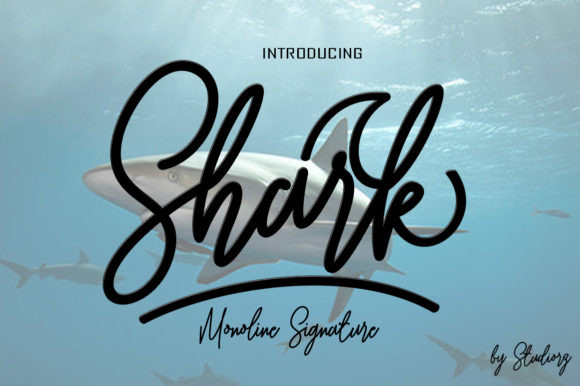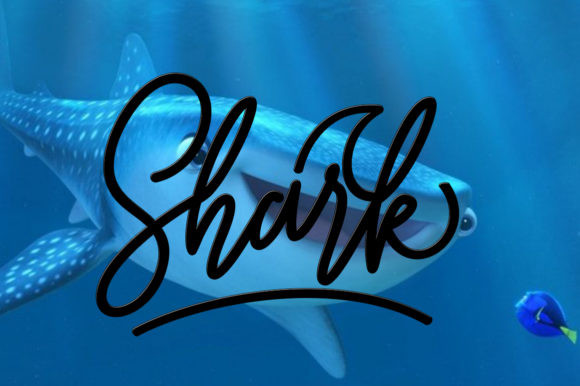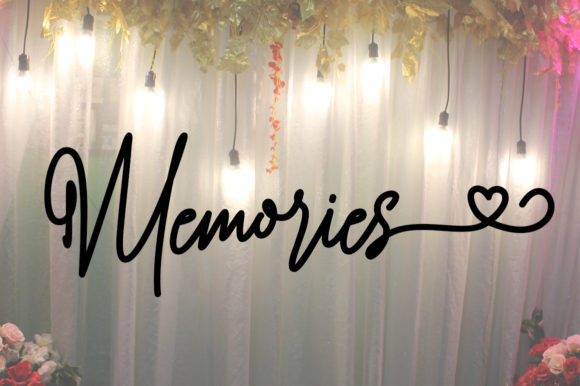
Shark Font
Shark FontShark is a magical handwritten font carefully created with a touch of elegance. This is a beautiful combination of timeless elegance and authentic calligraphy. Fall in love with its authentic feel and use it to create gorgeous wedding invitations, beautiful stationary art, eye-catching social media posts, and cute greeting cards.
This font is PUA encoded which means you can access all of the cute glyphs and swashes with ease! It also features a wealth of special features including alternate glyphs and ligatures.